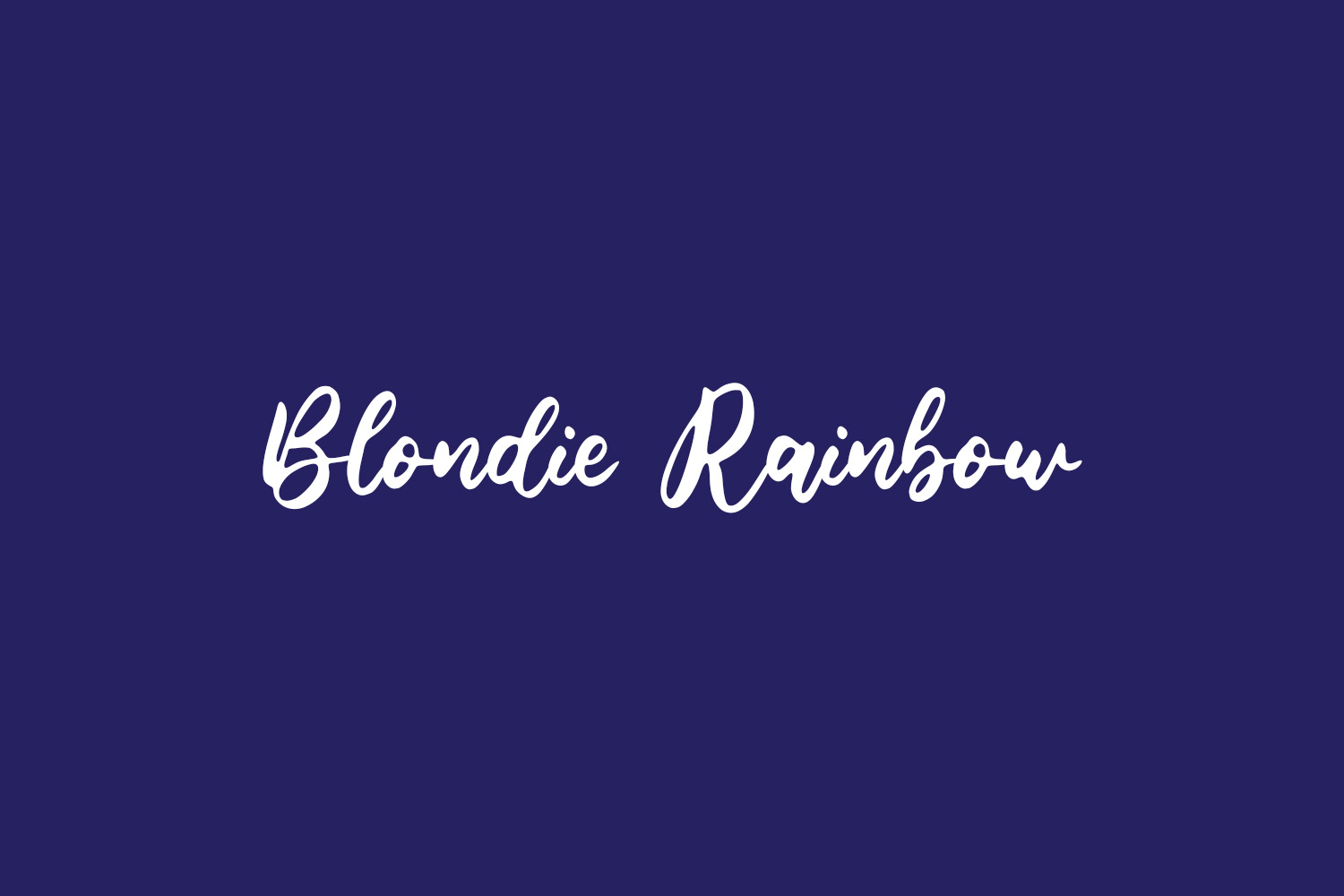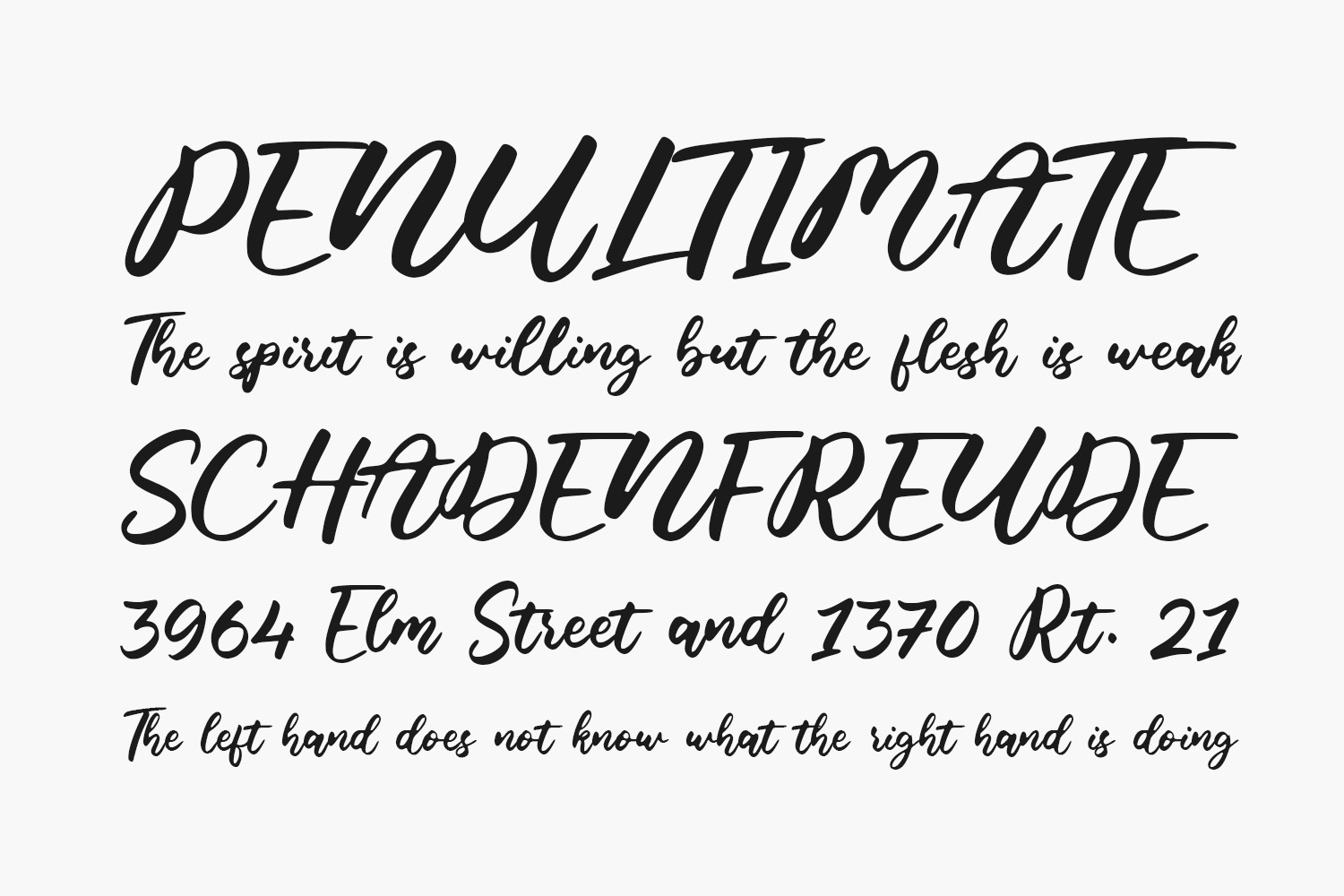
Blondie Rainbow Free Font is a font that captures the essence of joy and playfulness. Its bold, sweeping strokes and vibrant colors bring a sense of whimsy and fun to any design project. Whether used for a children’s book, a party invitation, or a social media post, this font adds a touch of magic and delight. Its fluid, graceful lines evoke feelings of freedom and creativity, inviting users to let their imaginations run wild. Blondie Rainbow Free Font is a true delight, a font that brightens any project and brings a smile to the face of all who see it.